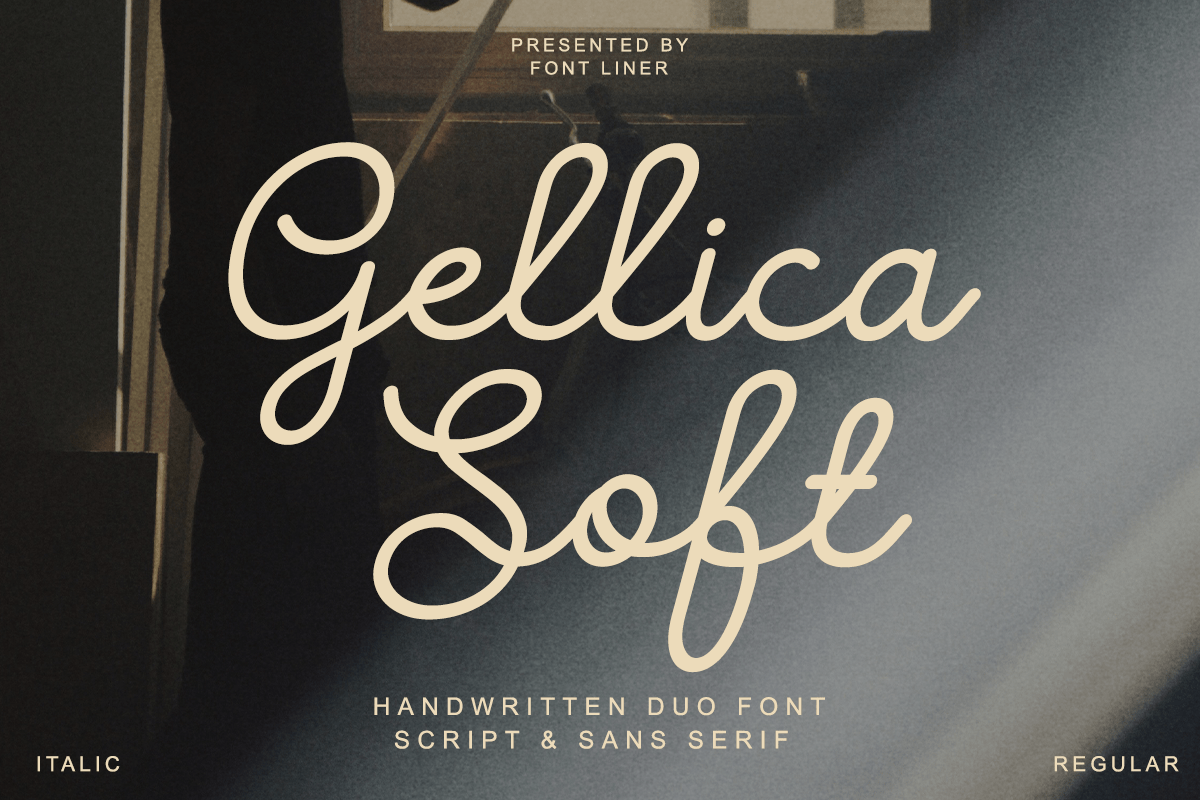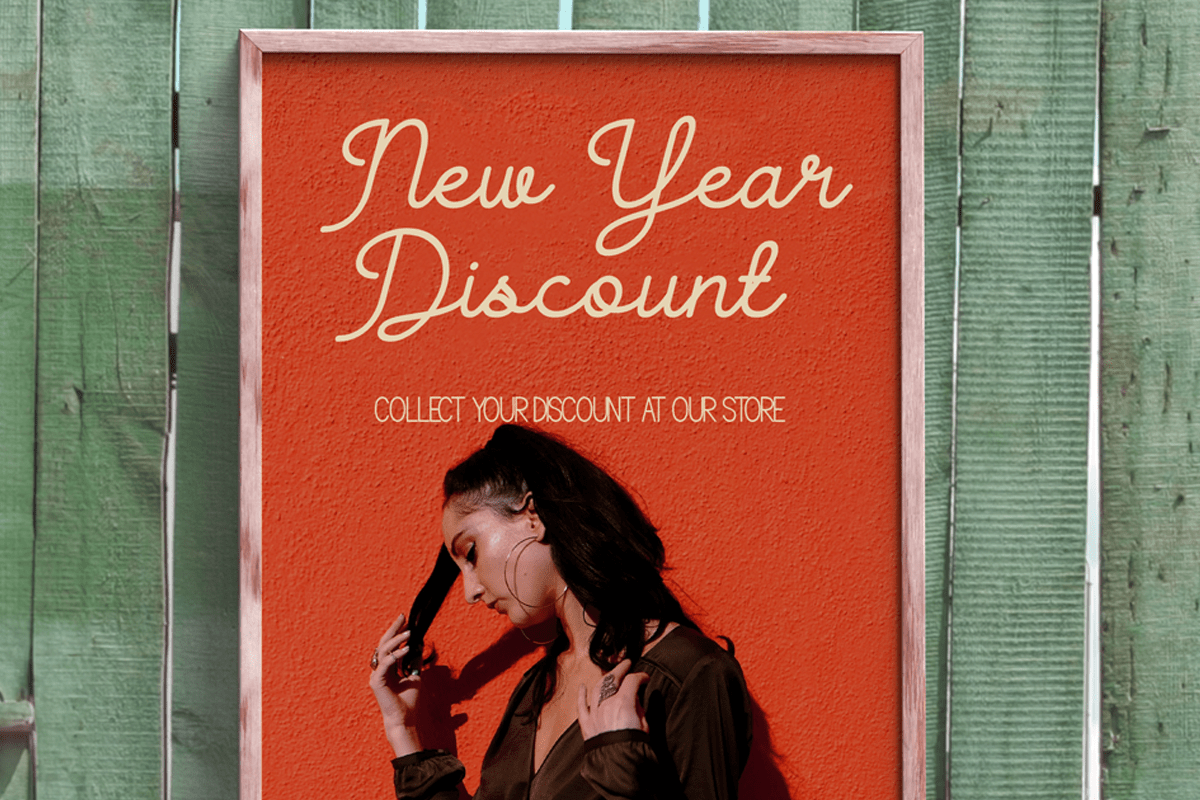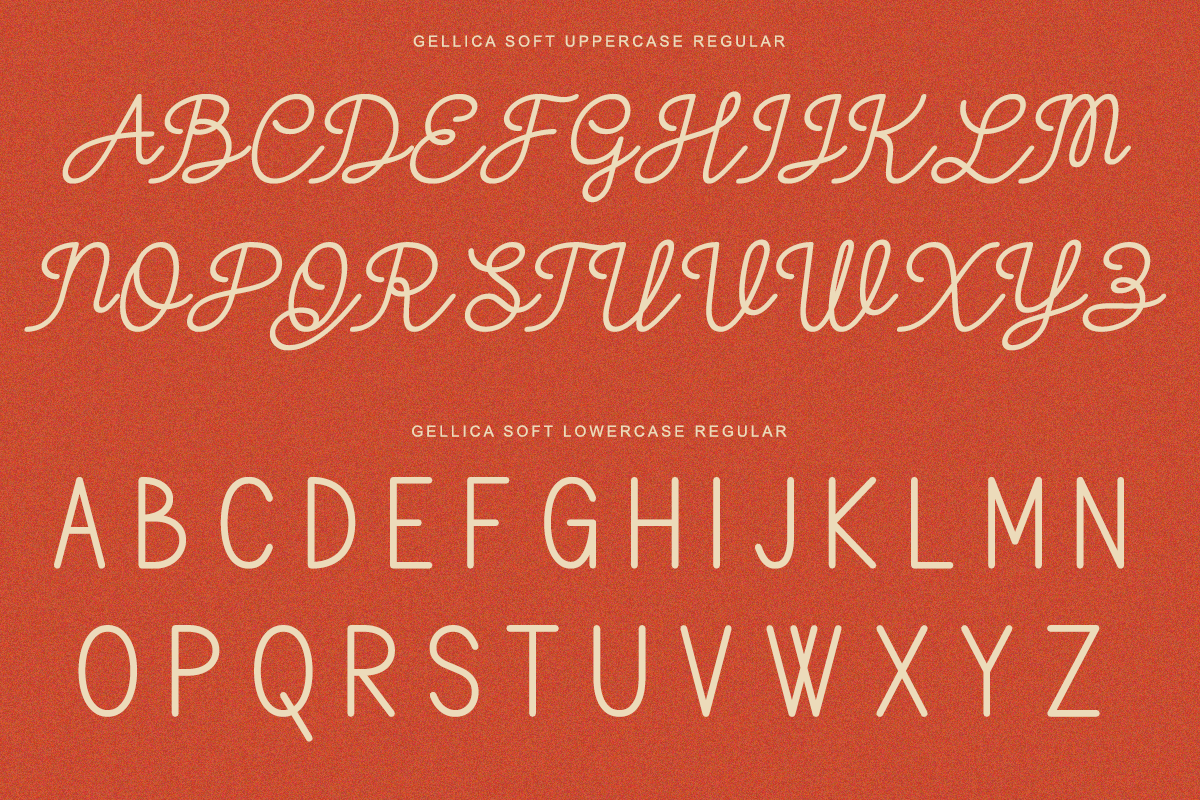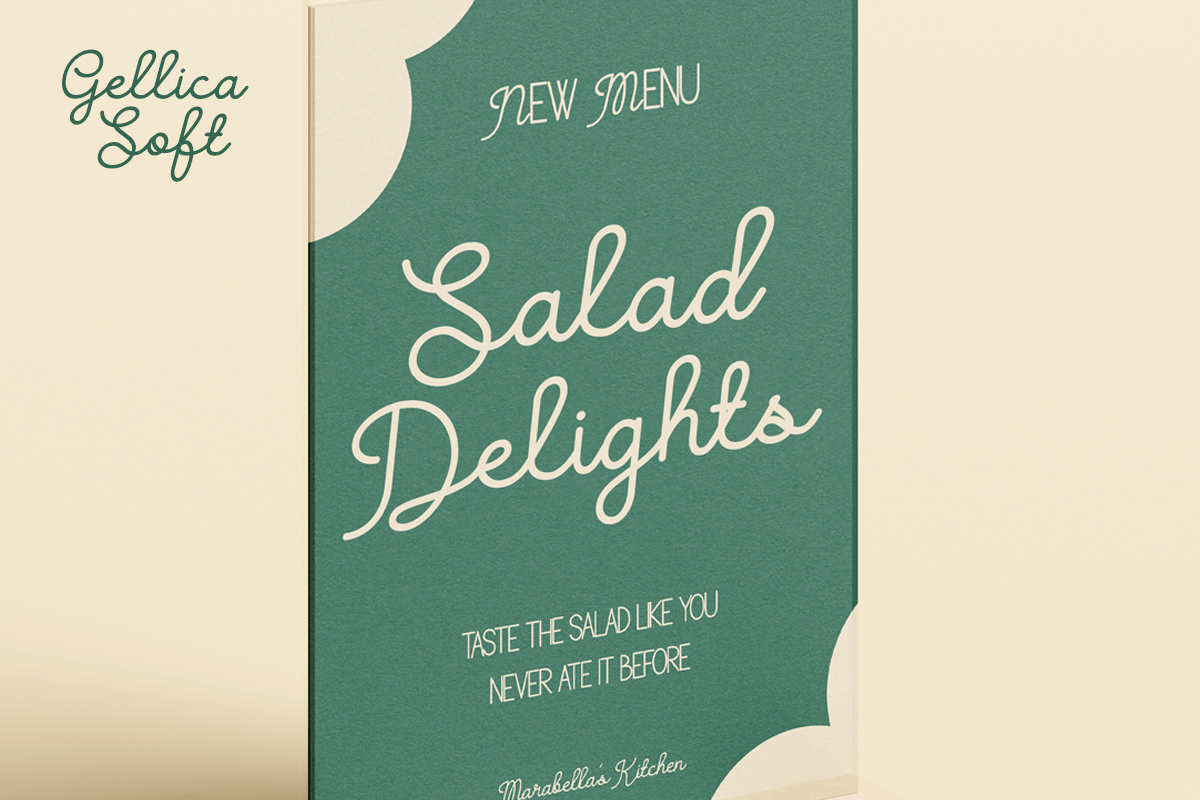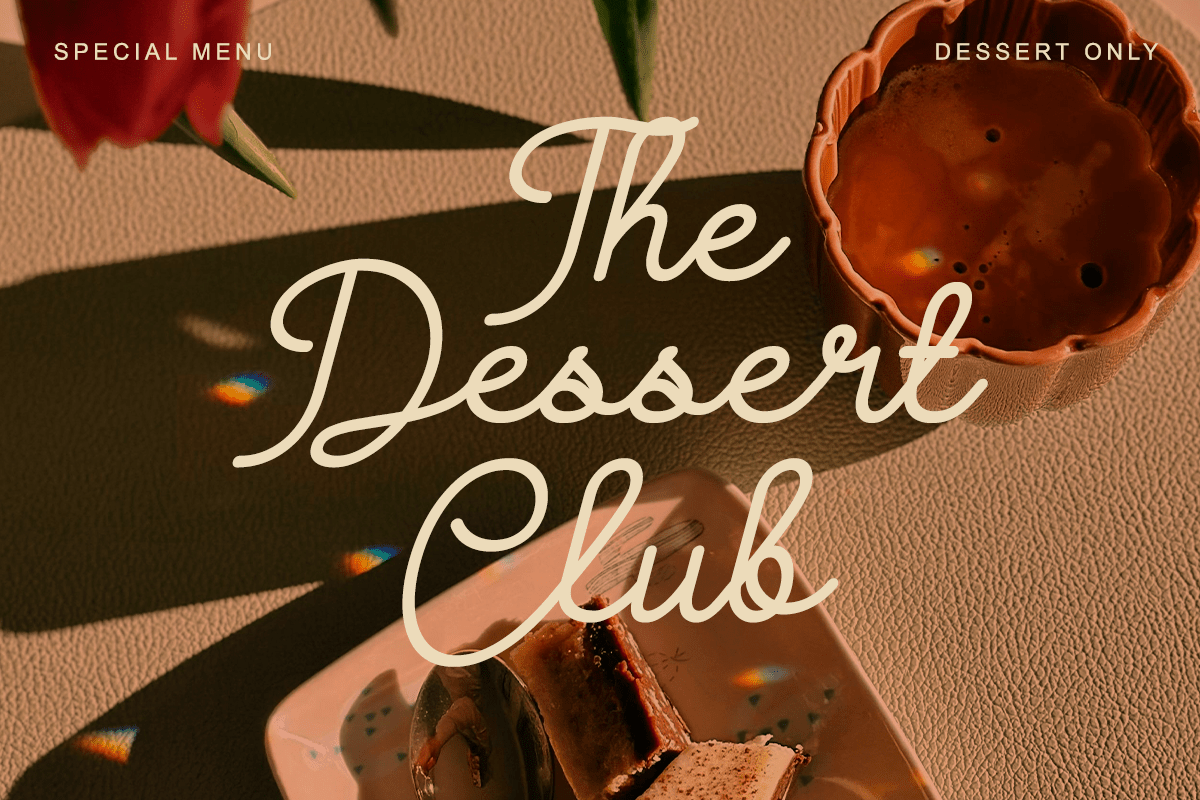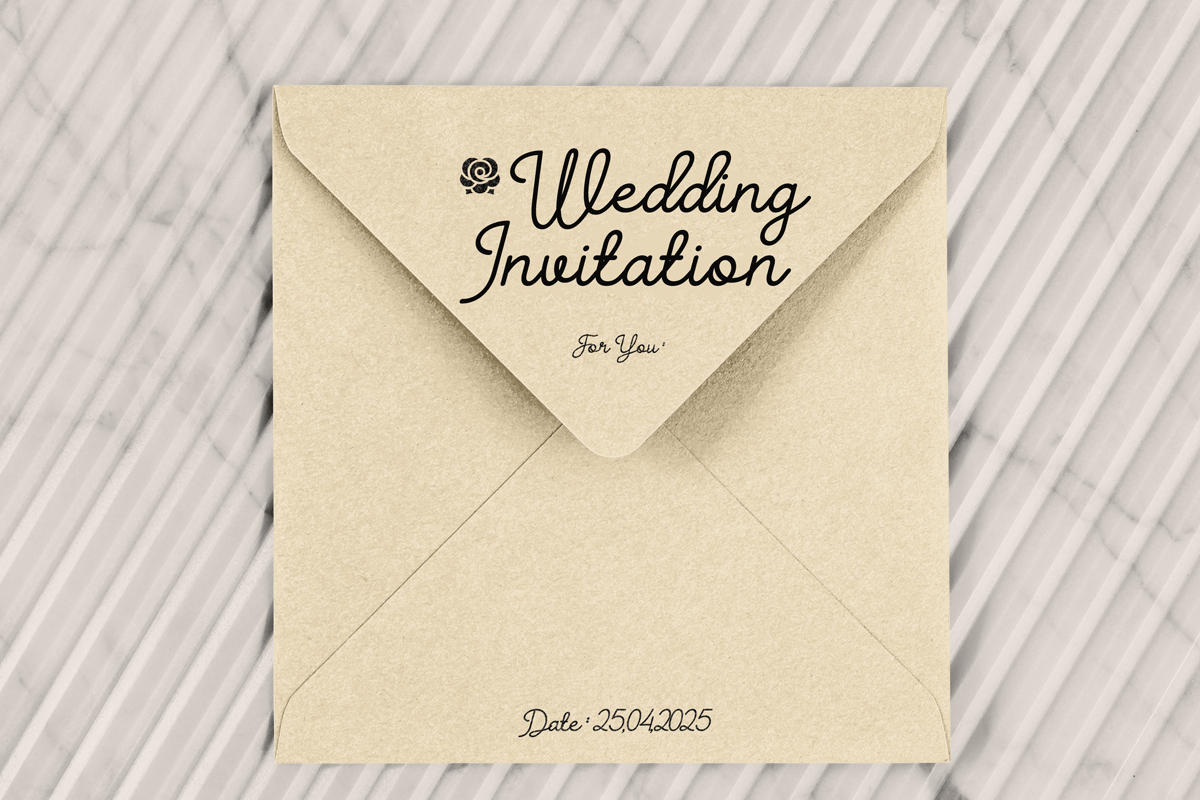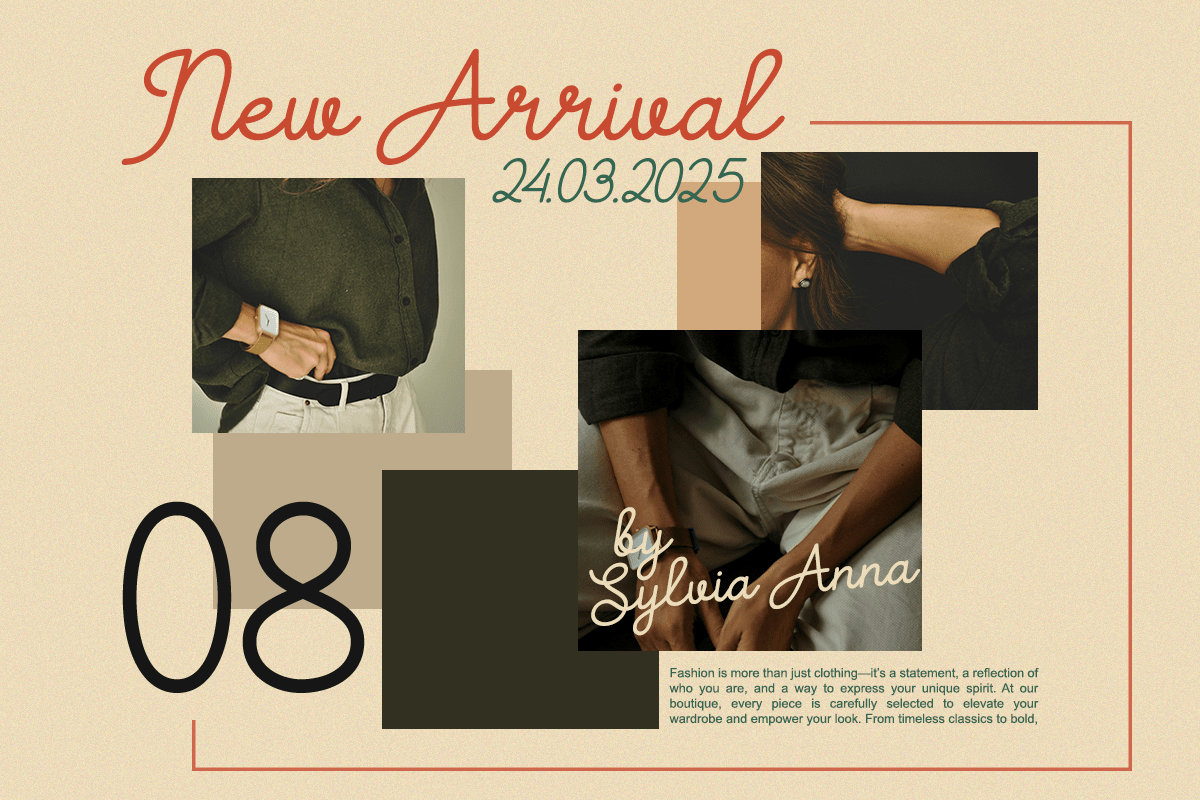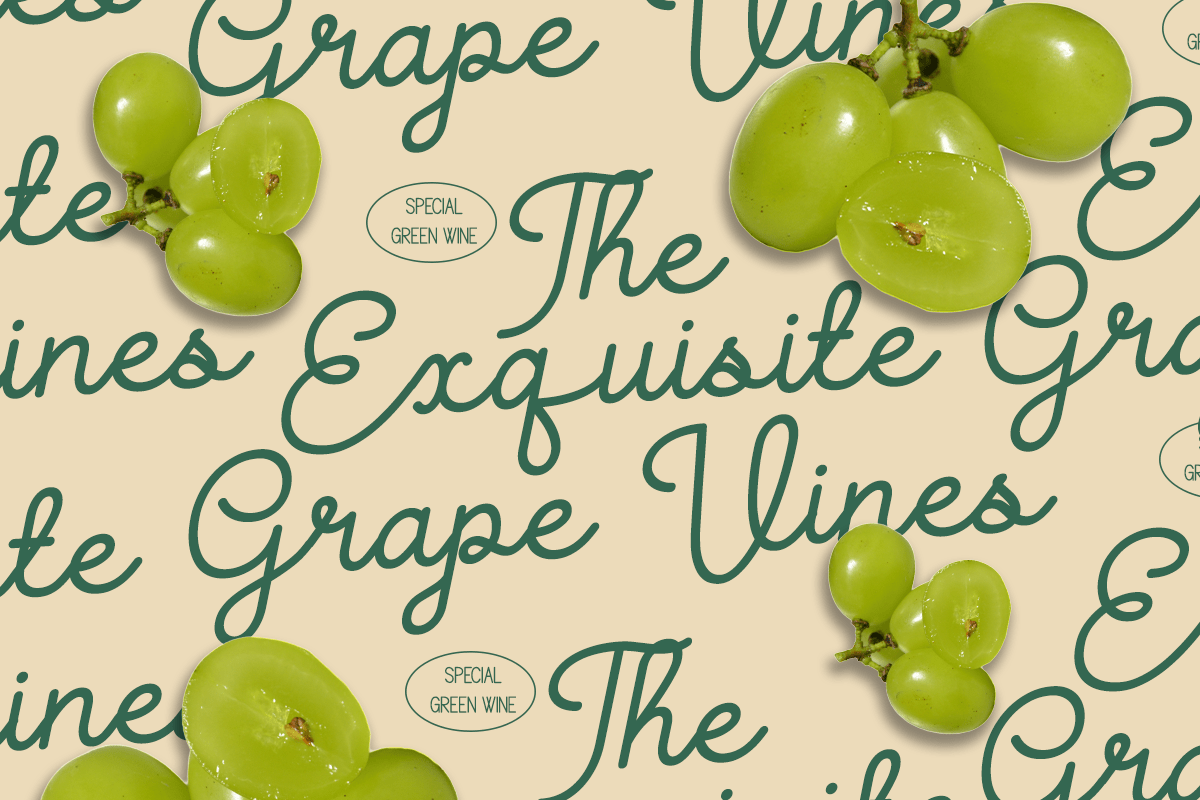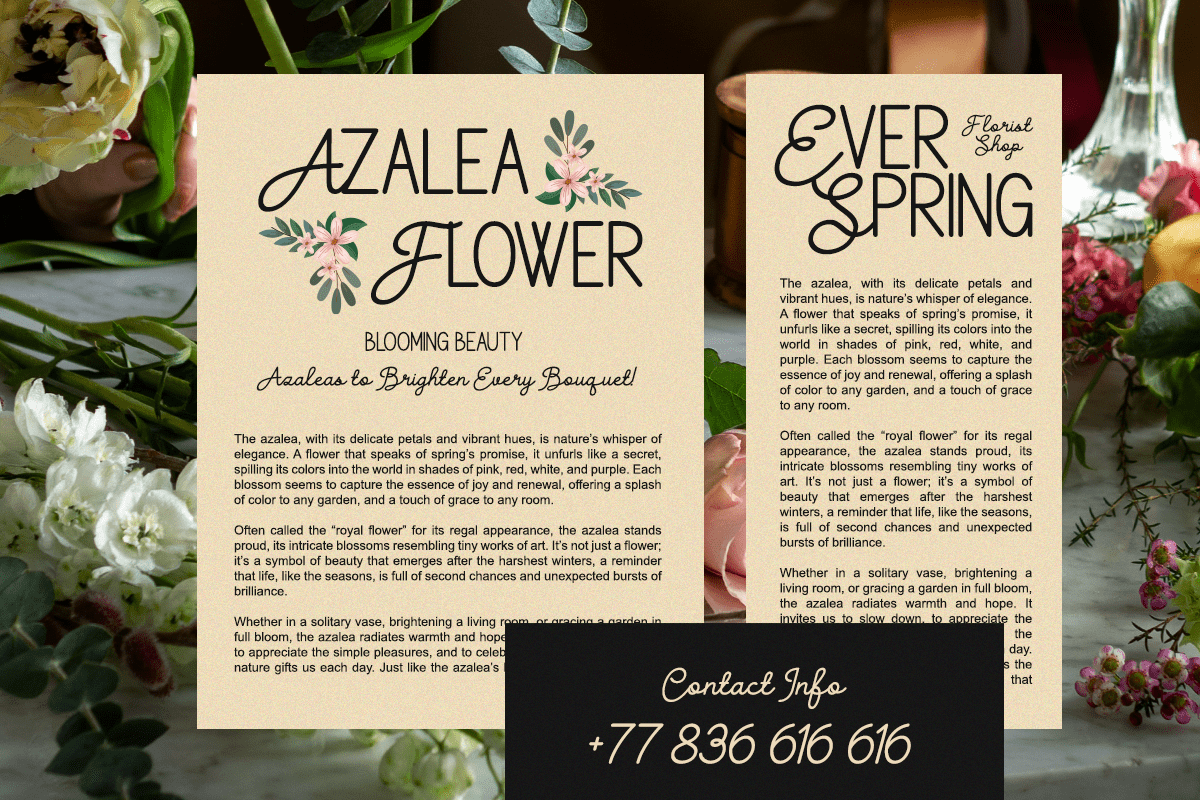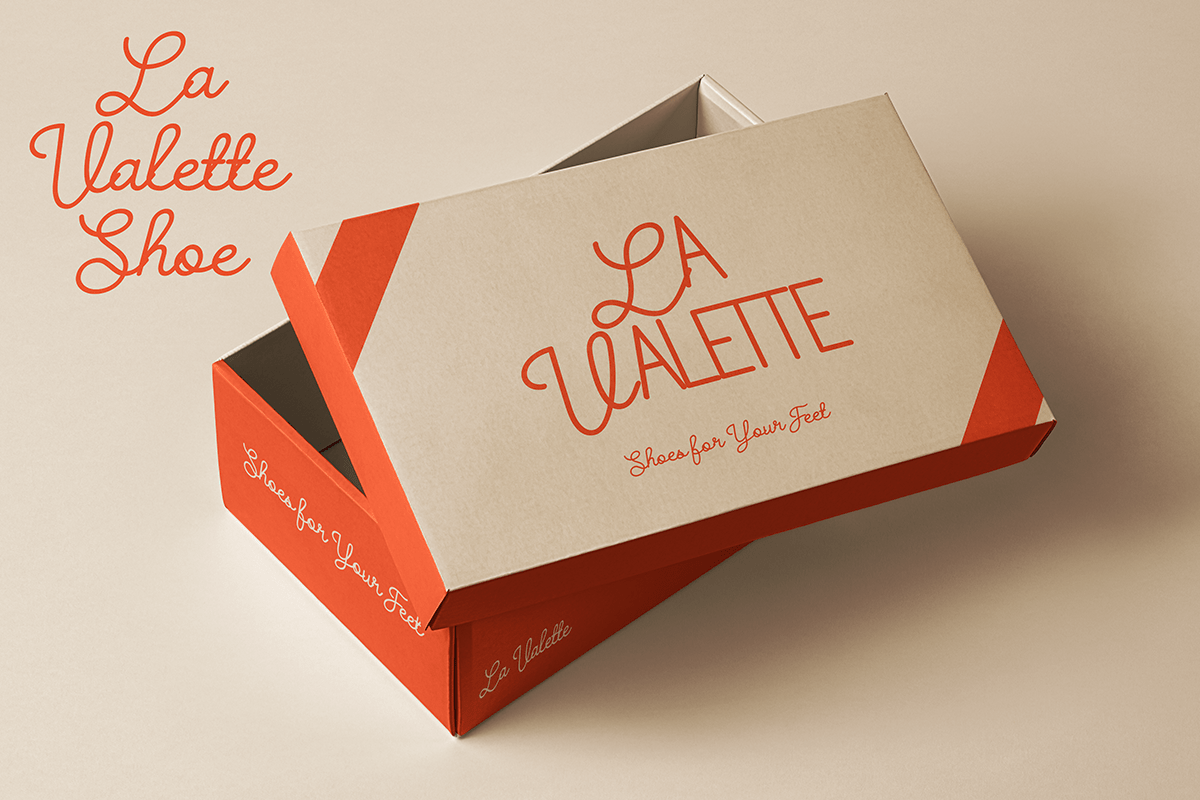
Gellica Soft – Handwritten Duo Font
Gellica Soft is a charming handwritten duo font that beautifully combines an elegant flowing script with a clean minimalist sans serif. Designed to create natural typography with a modern handcrafted feel, this versatile font pairing offers the perfect balance between expressive handwriting and professional simplicity. Whether used together or individually, Gellica Soft delivers a warm, stylish, and memorable visual identity for creative projects.
Ideal for branding, logos, cafés, restaurants, bakeries, product packaging, invitations, fashion campaigns, social media, editorials, lifestyle brands, and promotional materials, Gellica Soft adapts effortlessly to both print and digital designs. The handwritten script adds personality and warmth, while the accompanying sans serif provides clean hierarchy and readability, making this duo perfect for premium branding systems and contemporary marketing.
Gellica Soft includes script and sans serif styles, uppercase and lowercase characters, multilingual support, numerals, punctuation, and symbols, offering everything designers need to build cohesive and elegant typography. From boutique branding and cosmetic packaging to wedding stationery, menu designs, and modern advertising, Gellica Soft is the perfect handwritten duo font for projects that demand creativity, versatility, and timeless appeal.